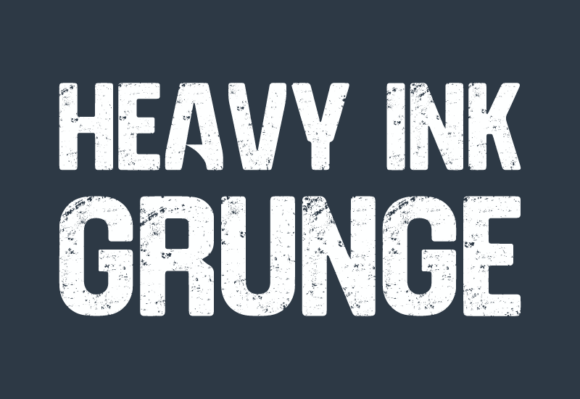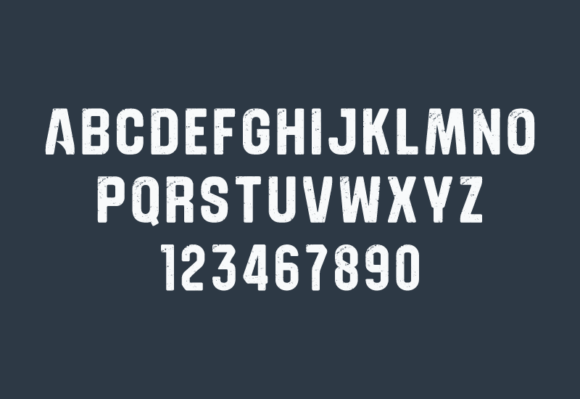
Heavy Ink Grunge Font
Unleash the power of distinctiveness with our ‘Heavy Ink Grunge’ sans-serif font. Renowned for its edgy yet unique design, Heavy Ink Grunge is more than just a typeface. Each of its raw, rough lines is layered with a distressed texture, nurturing an aura of grit and dissent.
With its unapologetic boldness and individualistic spirit, Heavy Ink Grunge delivers the perfect textural complement for projects that thrive in audacity. From disruptive poster graphics and audacious album covers to distinctive streetwear branding, Heavy Ink Grunge is crafted to embody the essence of non-conformity. Allow Heavy Ink Grunge to enhance your design aesthetics and shout out your messaging with profound impact.